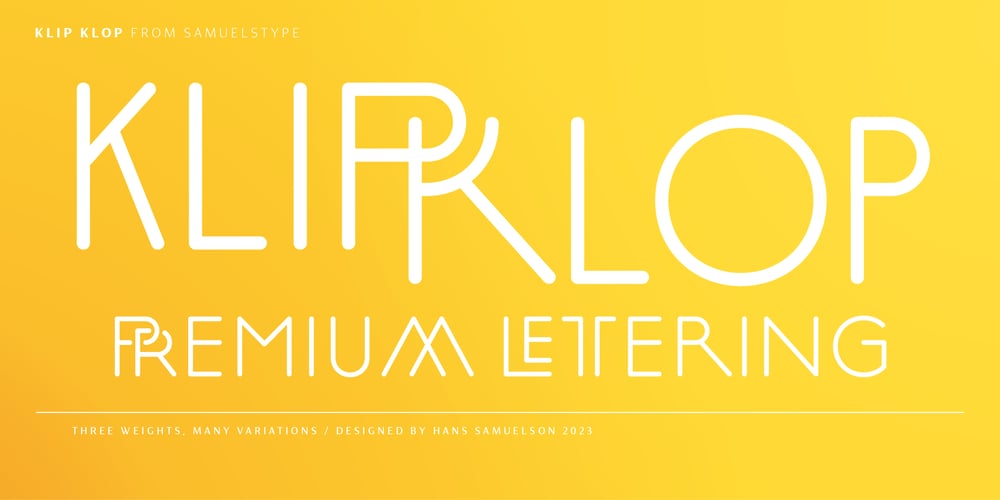
Klip Klop
Klip Klop font
Klip Klop Font Family was designed by Hans Samuelson and published by Samuelstype. Klip Klop contains 3 styles and family package options. Designed by Hans Samuelson in 2023.With two weights and many variations Klip Klop offers a large set of characters for playful lettering. The flavouring is strong avant garde and the build is strict geometrical with even stroke thickness throughout. One unusual feature is that the bottom and top horizontal strokes are centered on the baseline and capital height. This renders the same optical size between the thin and the medium but different actual heights and baselines. Use it for Headlines or signage in any medium! Klip Klop!